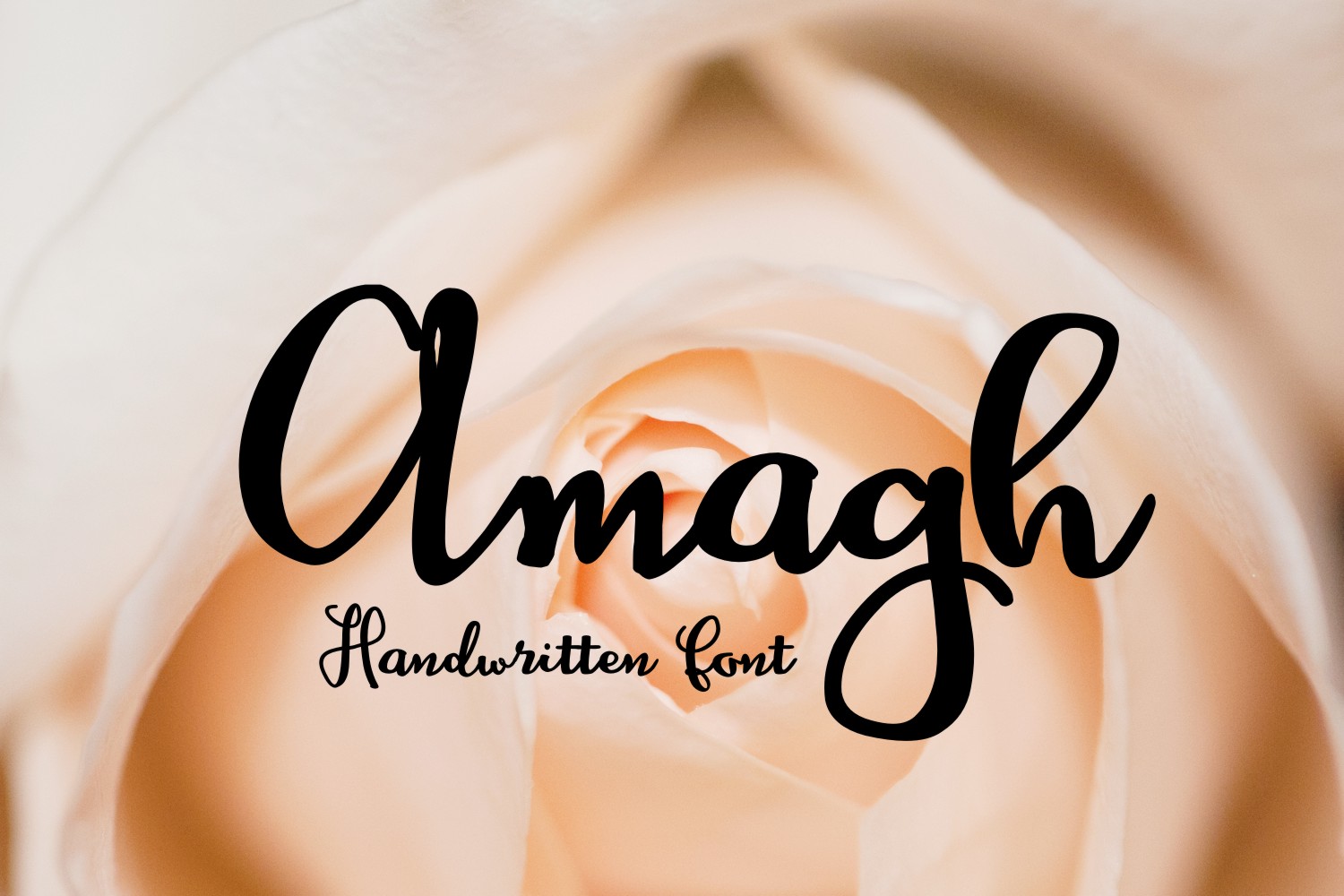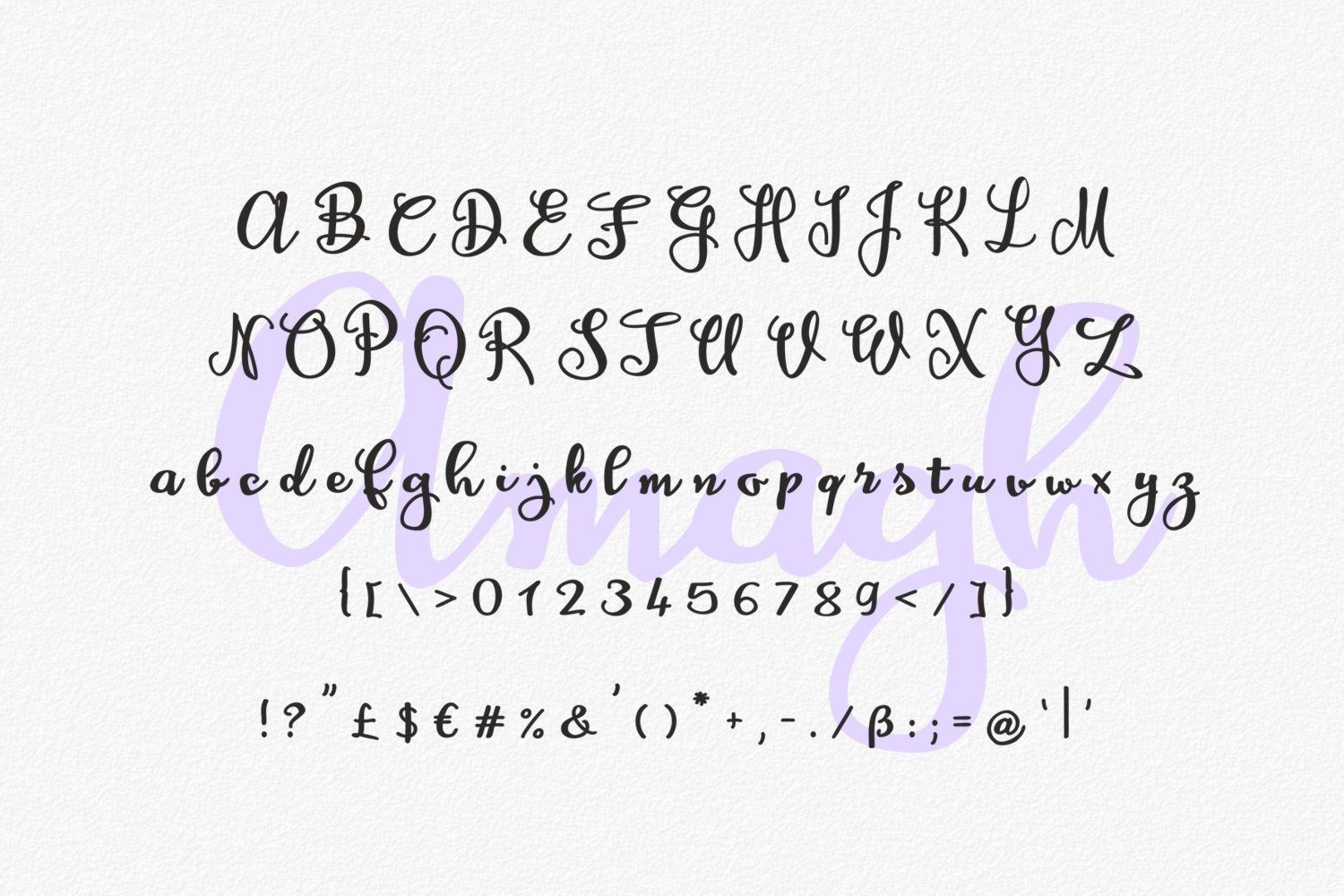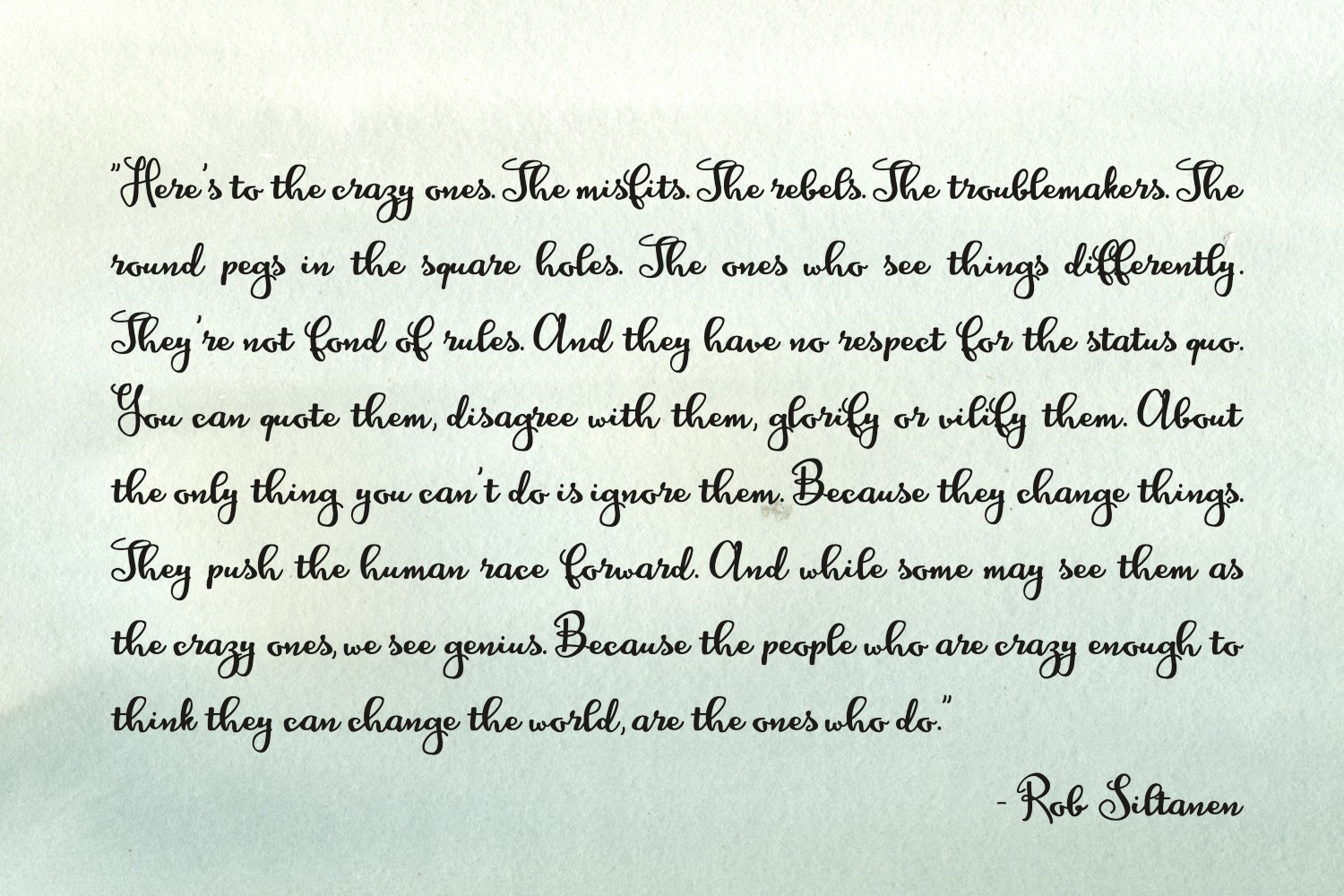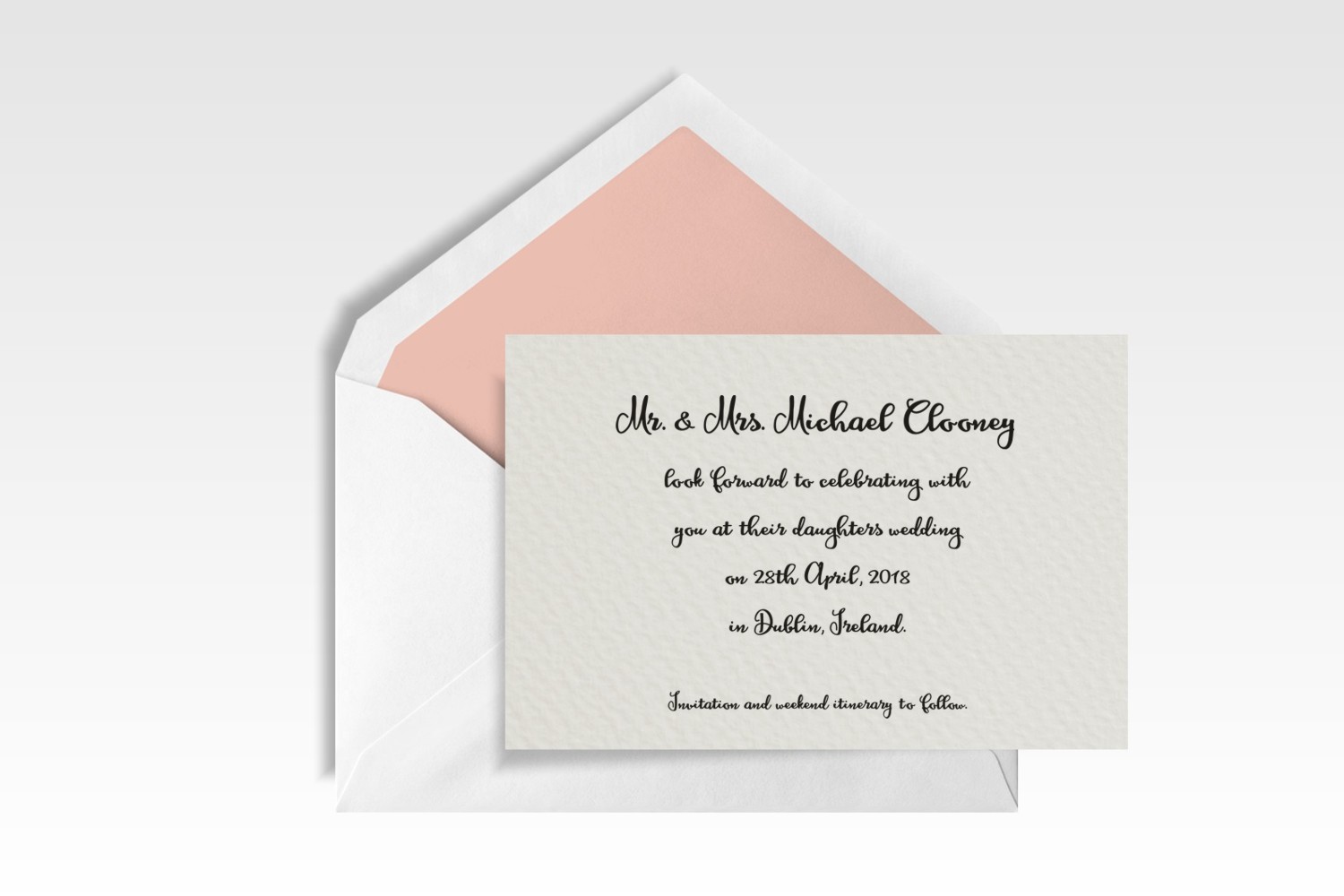
Amagh Font
About Amagh Font
Amagh is a smooth & elegant handwritten font.
It has a playful style that will allow you to add a fun touch to your designs in seconds.